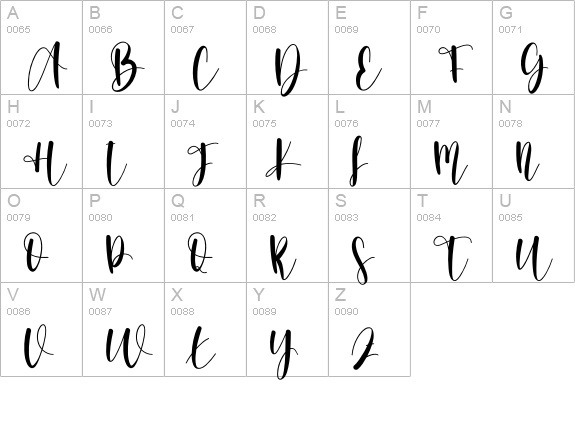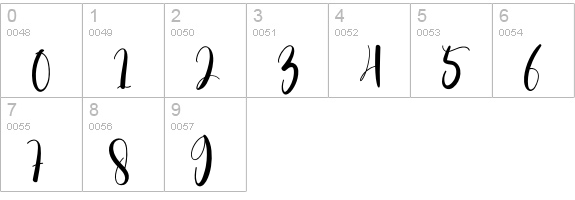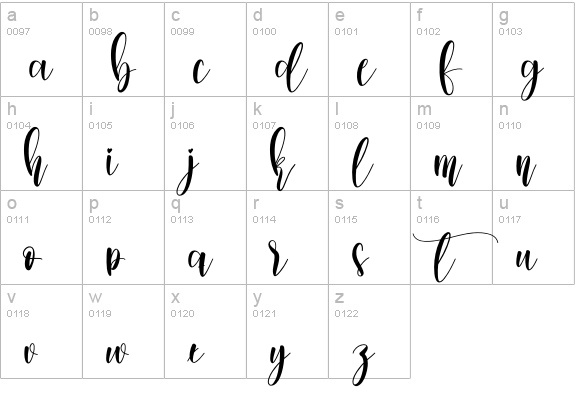
Gloria2 Font Details
Gloria2 is a free for personal use font in the Script > Handwritten category, designed by scratchones. It has been downloaded 5 times and is available for Windows, Mac and Linux.
Introducing Gloria2 font - a stunning and versatile typeface that adds a touch of elegance to any design project. With its sleek and modern look, Gloria2 is perfect for creating eye-catching logos, branding materials, and more. This font features clean lines and a timeless appeal that will make your text stand out.